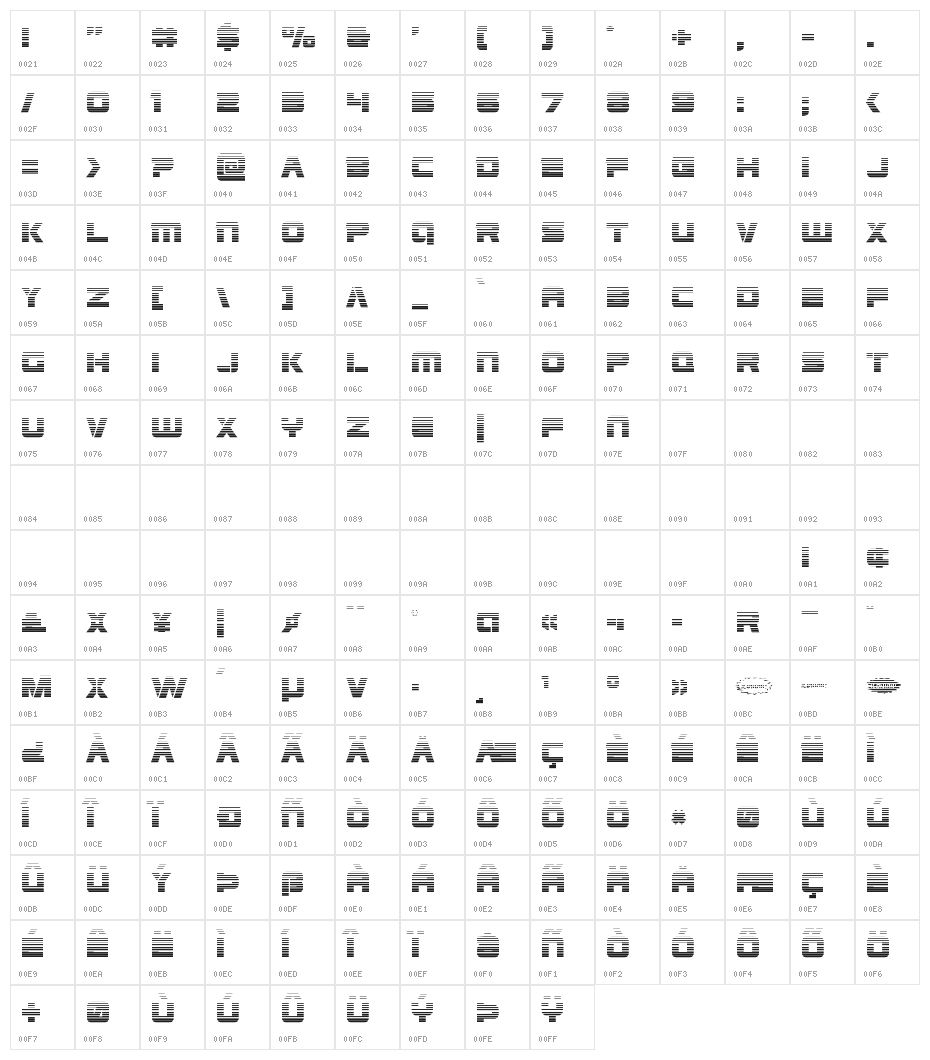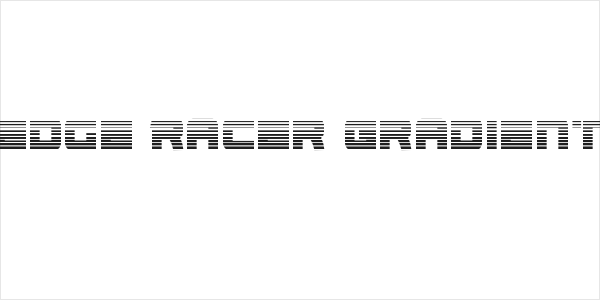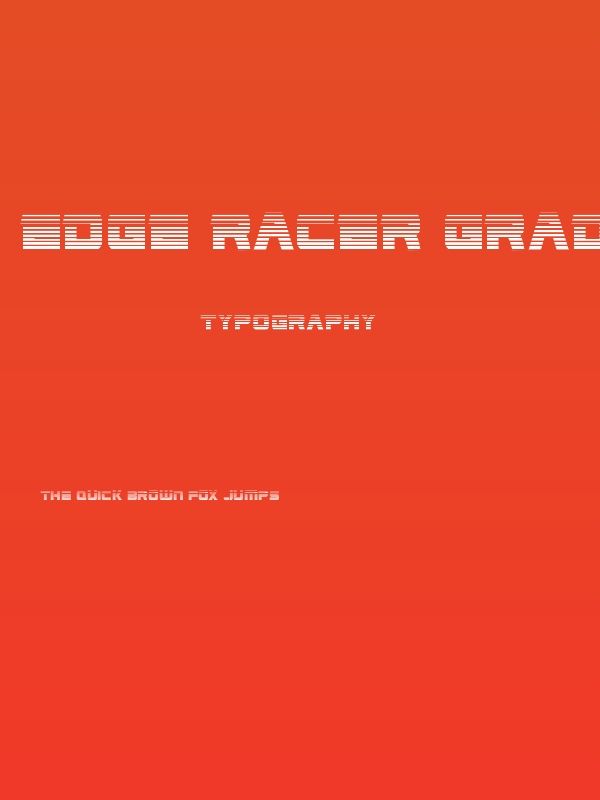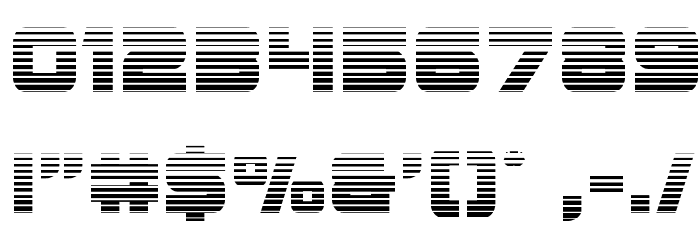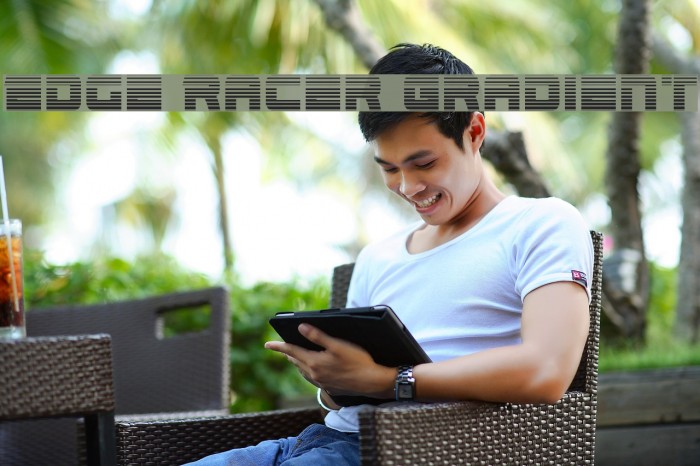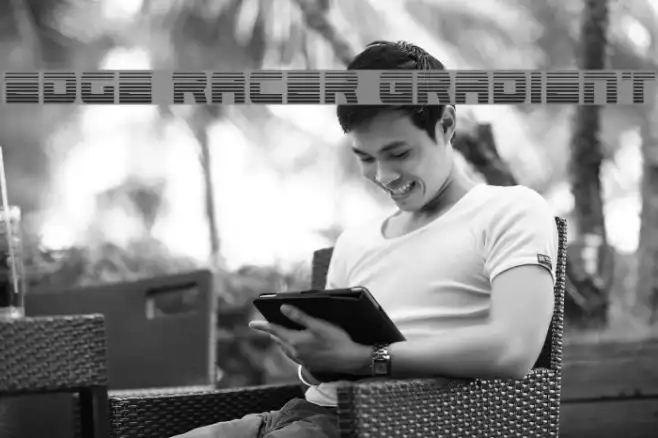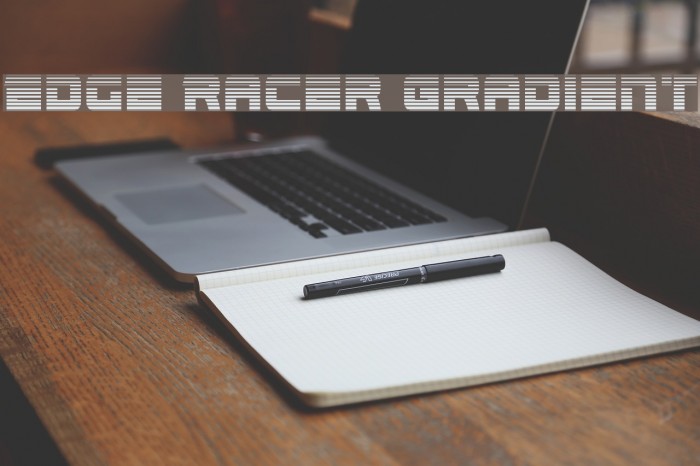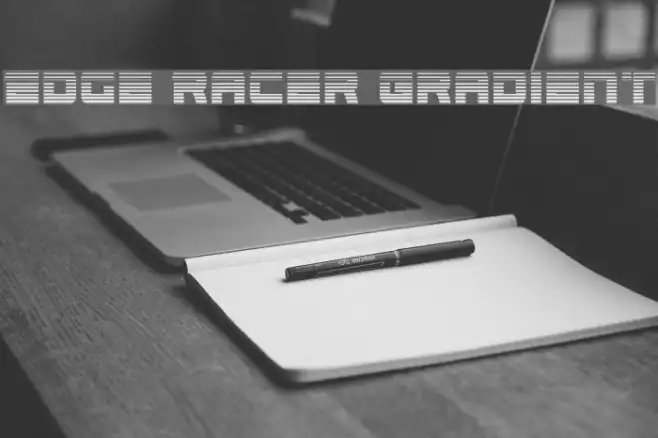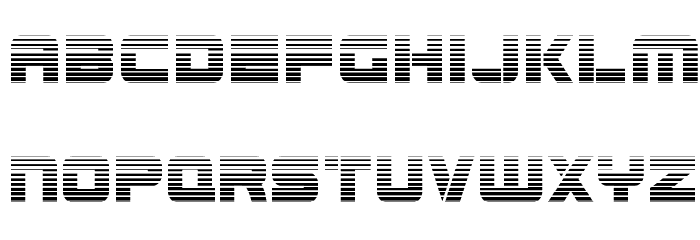
Edge Racer Gradient Font
Edge Racer Gradient Description
This font features a bold, futuristic design with a distinctive striped pattern running horizontally across each character. The geometric shapes and sharp angles give it a dynamic and modern appearance, reminiscent of speed and movement. The uppercase and lowercase letters maintain a consistent style, with the stripes creating a sense of depth and texture. The numerals and special characters are equally bold and maintain the same striped pattern, ensuring uniformity across all glyphs. This font is ideal for projects that require a strong visual impact and a contemporary aesthetic.